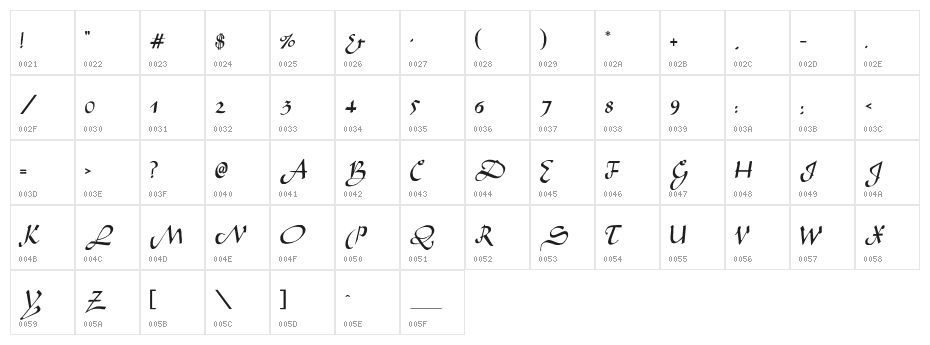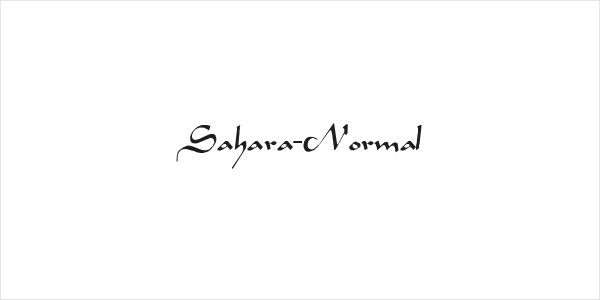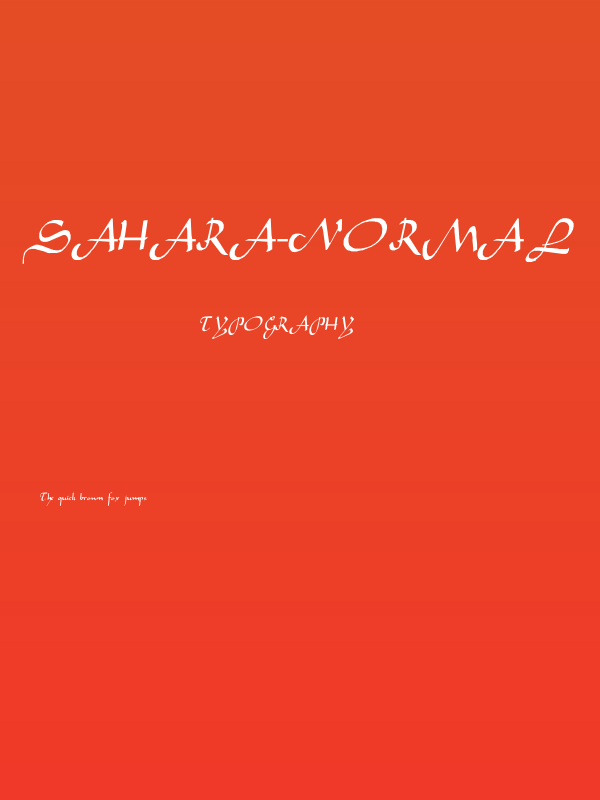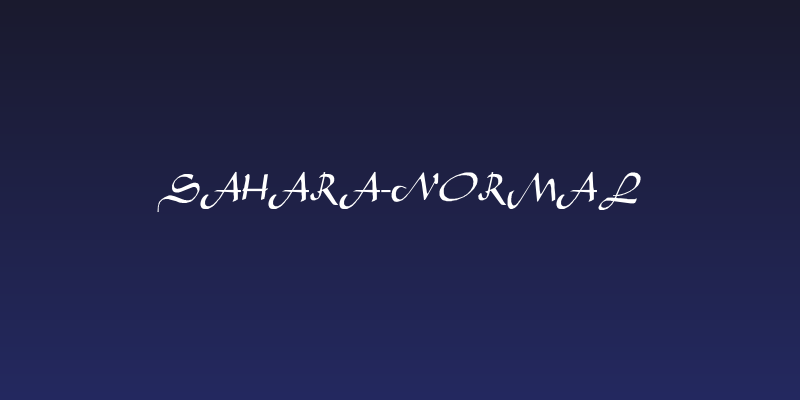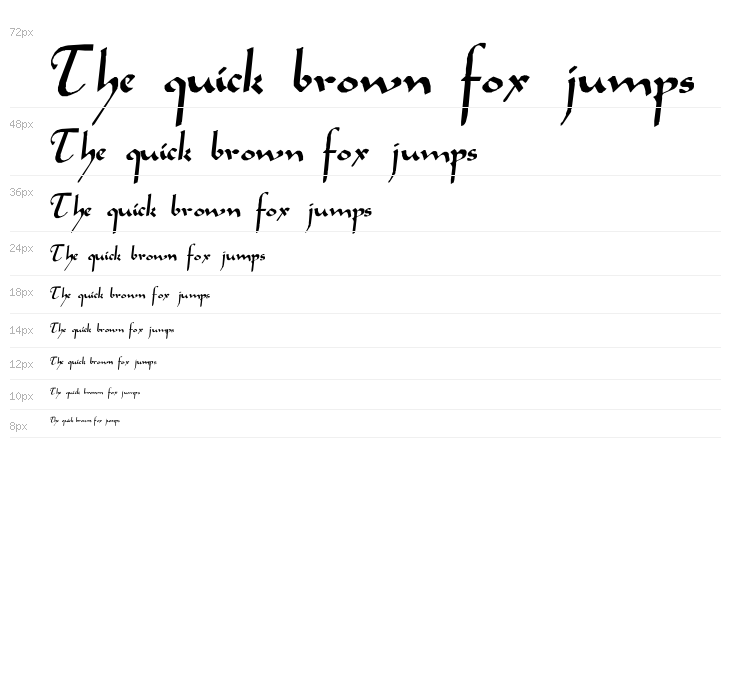
Sahara-Normal Font
Sahara-Normal Description
This font features a distinctive calligraphic style with elegant, flowing strokes that mimic traditional handwriting. The uppercase letters are ornate, with flourishes that add a touch of sophistication. The lowercase letters maintain a consistent style, offering a harmonious blend of curves and sharp angles. Numbers are designed with a similar flair, ensuring consistency throughout. Special characters are crafted with unique details, enhancing the overall aesthetic. This font is ideal for projects that require a touch of elegance and artistic flair.